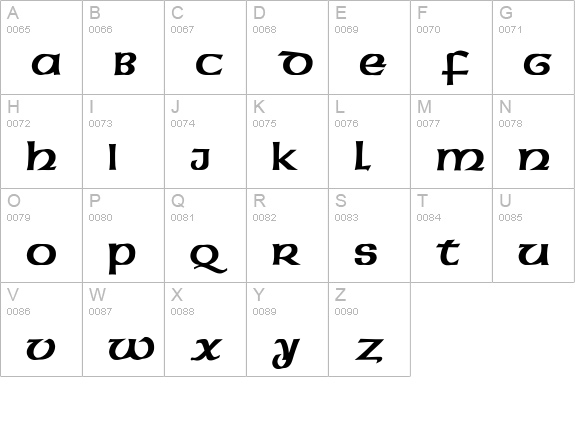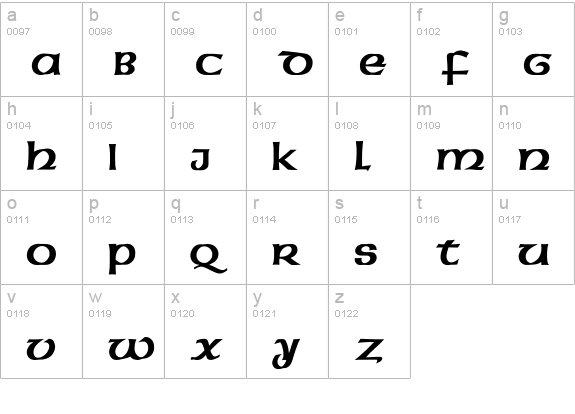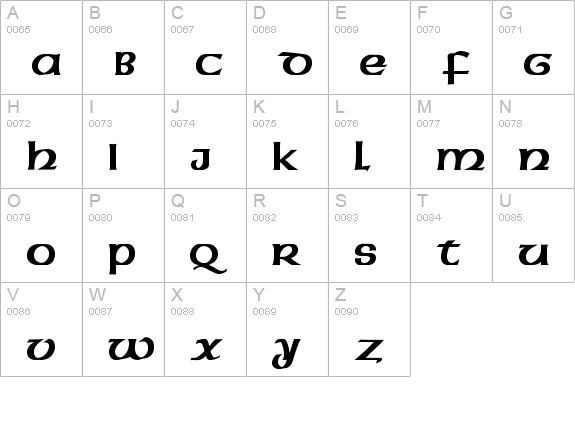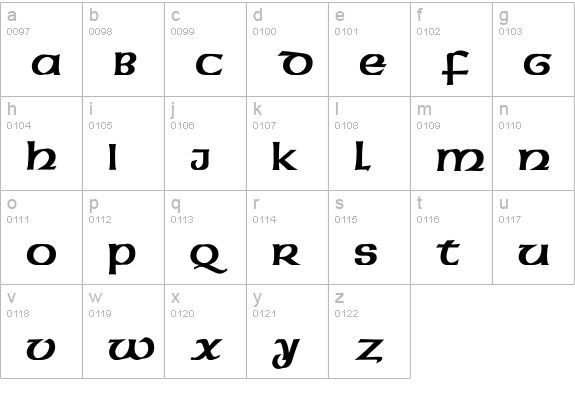
AmericanUncialInitialsBold Font Details
AmericanUncialInitialsBold is a stunning and elegant font that combines traditional uncial letterforms with a bold and modern twist. Its intricate details and beautiful curves make it a perfect choice for projects that require a touch of sophistication and class. This font exudes a sense of timeless charm and is sure to make any design stand out. What sets AmericanUncialInitialsBold apart is its versatility. Whether you're working on a vintage-inspired poster, a wedding invitation, or a branding project, this font will add a touch of uniqueness and style to your designs. Its bold and impactful presence on the page will capture the attention of your audience and leave a lasting impression. The best part? AmericanUncialInitialsBold is completely free to download at FontsMarket.com. You can easily access this font and incorporate it into your projects without any cost. Don't miss out on the opportunity to enhance your designs with this beautiful and distinctive typeface. Download AmericanUncialInitialsBold today and elevate your creative projects to the next level.